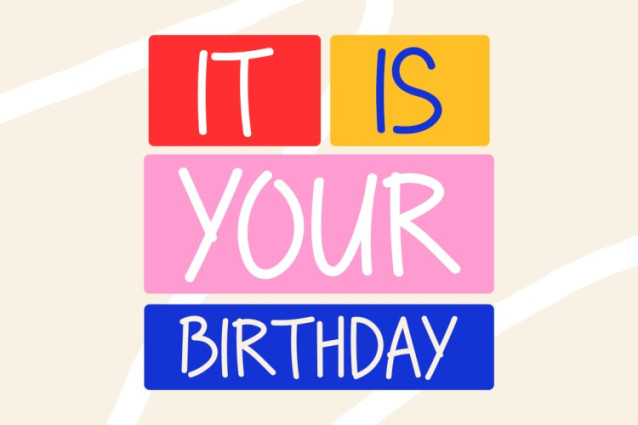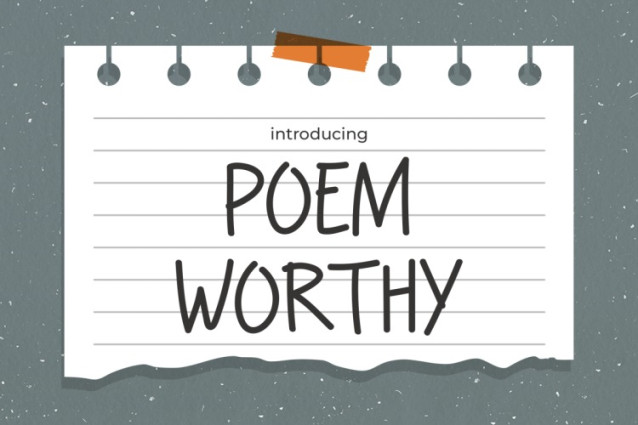
Poem Worthy Font
Poem Worthy Font is a simple yet expressive font that captures the charm of handwritten notes and poetry. With its clean, natural strokes and slightly imperfect lines, this font embodies warmth, creativity, and a personal touch. It delivers a casual and inviting feel, making any text look carefully handwritten on a notepad.
The slightly irregular letterforms create a handcrafted aesthetic, making each word feel more intimate and thoughtful. Poem Worthy brings authenticity to designs, whether for journaling, quotes, or branding. The smooth curves and balanced proportions ensure readability while preserving the organic, handwritten essence that makes it special.
Additionally, Poem Worthy offers versatility. It works beautifully on both digital and print materials, adapting well to social media posts, book covers, invitations, and personal projects. Its simple design blends effortlessly with other elements, making it an excellent choice for various creative applications.